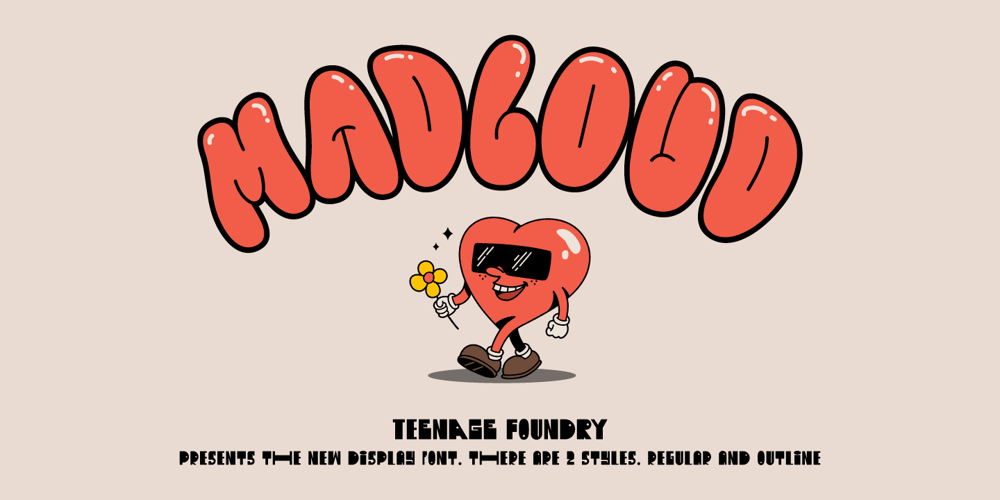
TF Madloud Font Family was designed by Miftahul Habib and published by Teenage Foundry. TF Madloud contains 2 styles and family package options. TF Madcloud – This bold and playful graffiti font is perfect for any project that needs an eye-catching touch. Its thick, rounded letters will grab attention and communicate a fun, carefree vibe. The hand-drawn style of this font gives it a unique, personal touch that sets it apart from more standard typefaces. With both regular and outline versions, you can use this font in a variety of ways to suit your needs.Features: Uppercase, Lowercase, Numeral, Punctuation & Multilingual.For any questions please contact me 🙂Thanks!